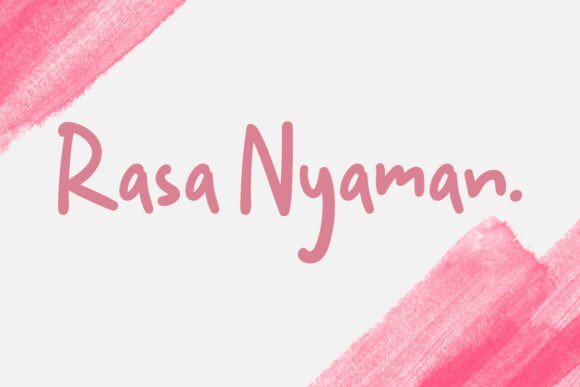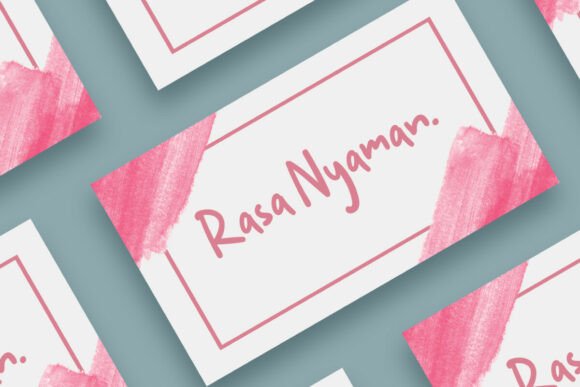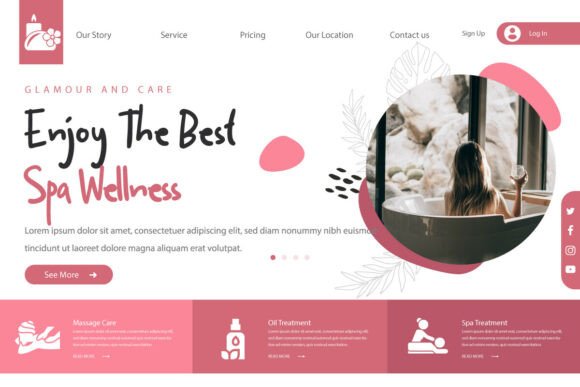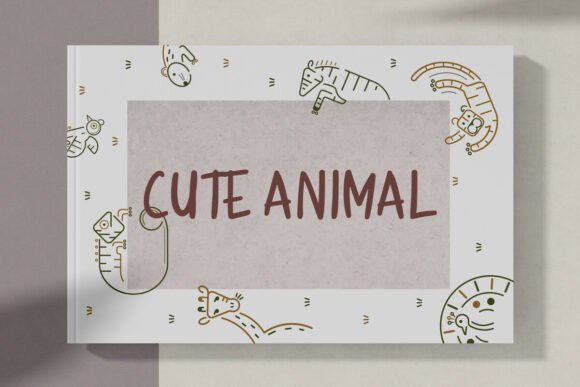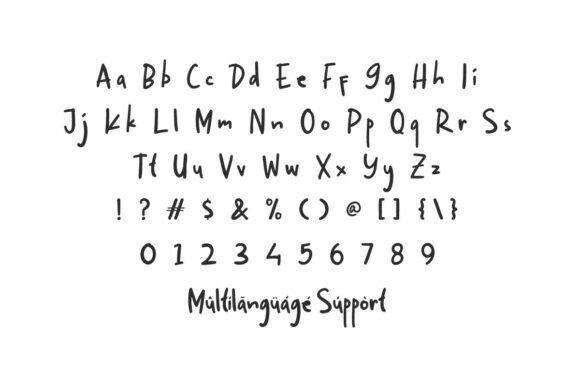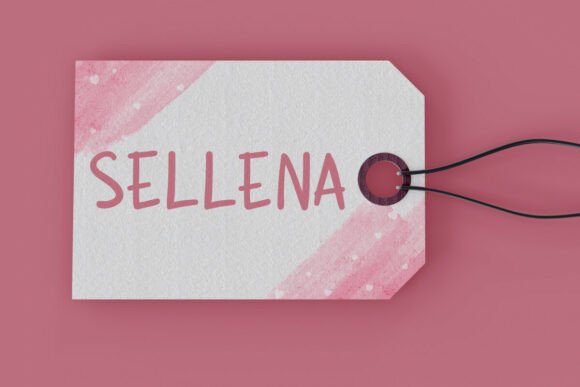
Introduction to Rasanyaman Font
Rasa Nyaman is a modern handwritten font that radiates warmth, ease, and personality.
With its smooth, rounded strokes and natural rhythm, it mimics casual handwriting, giving every word a personal, relaxed touch The characters are slightly bouncy, creating a dynamic but approachable flow perfect for wellness brands, blogs, social media, and cozy packaging.